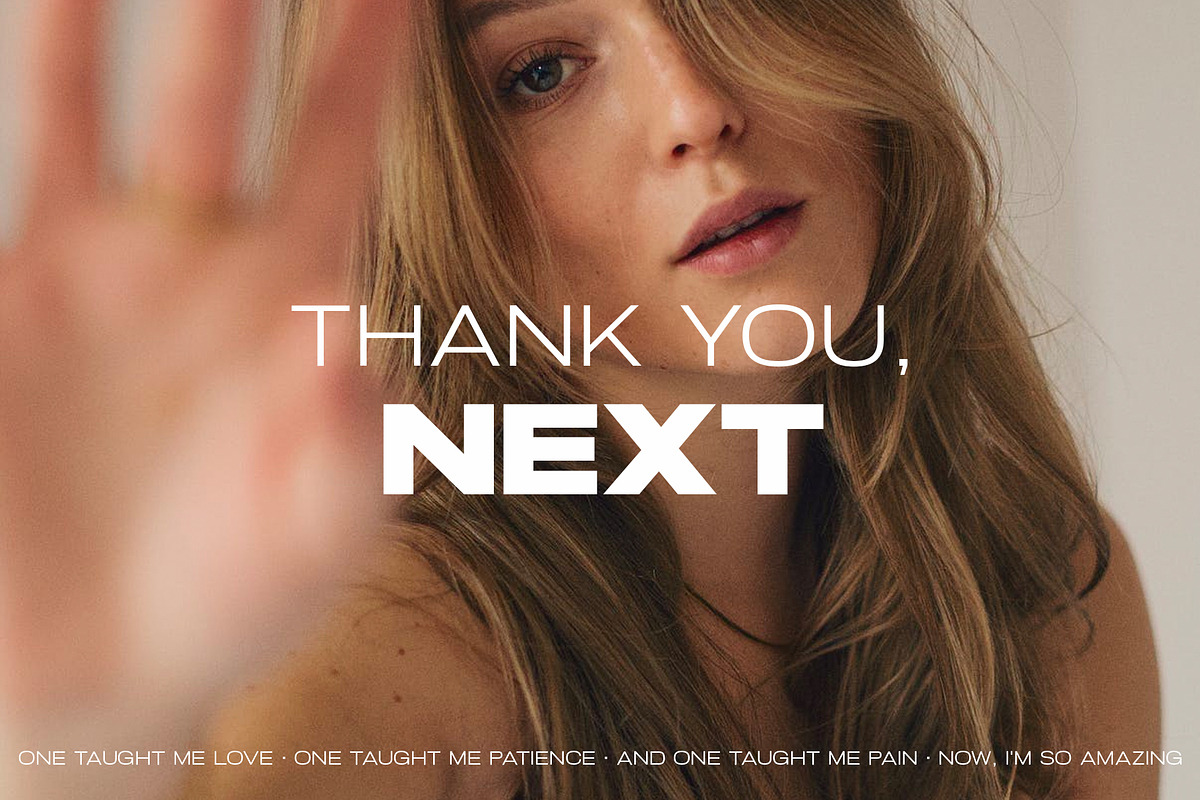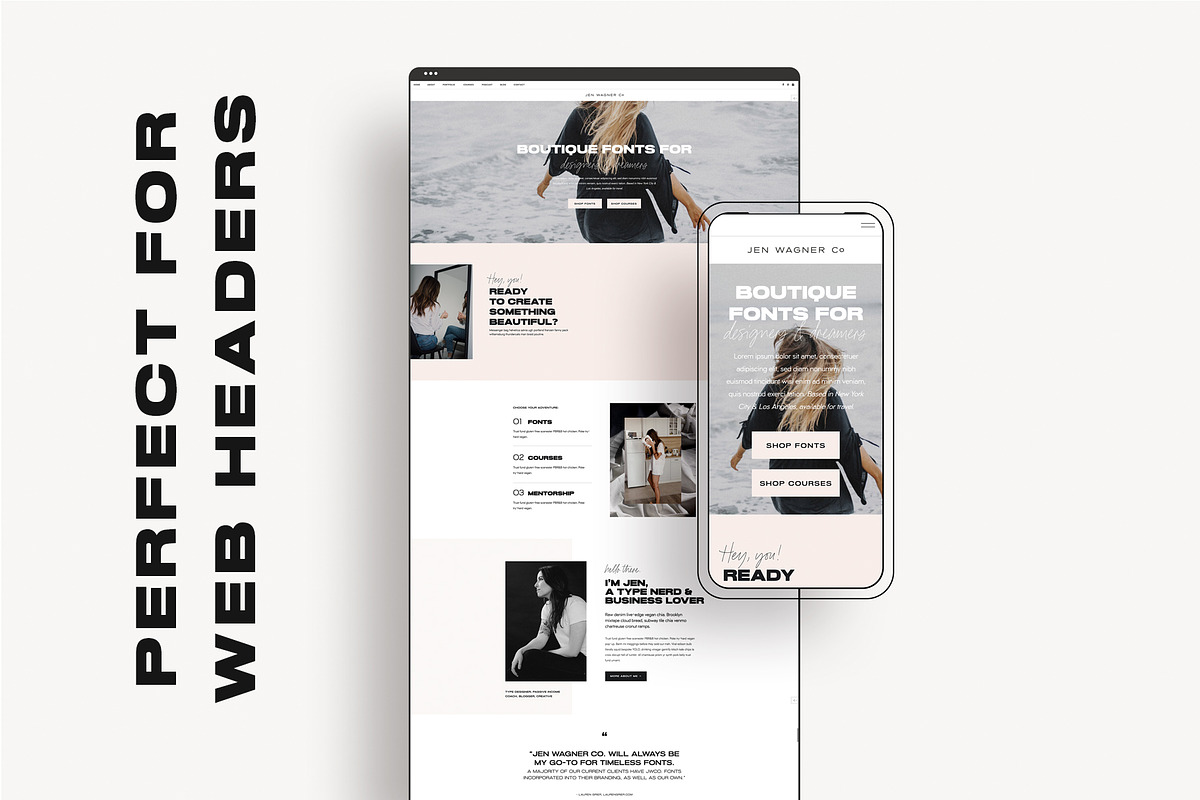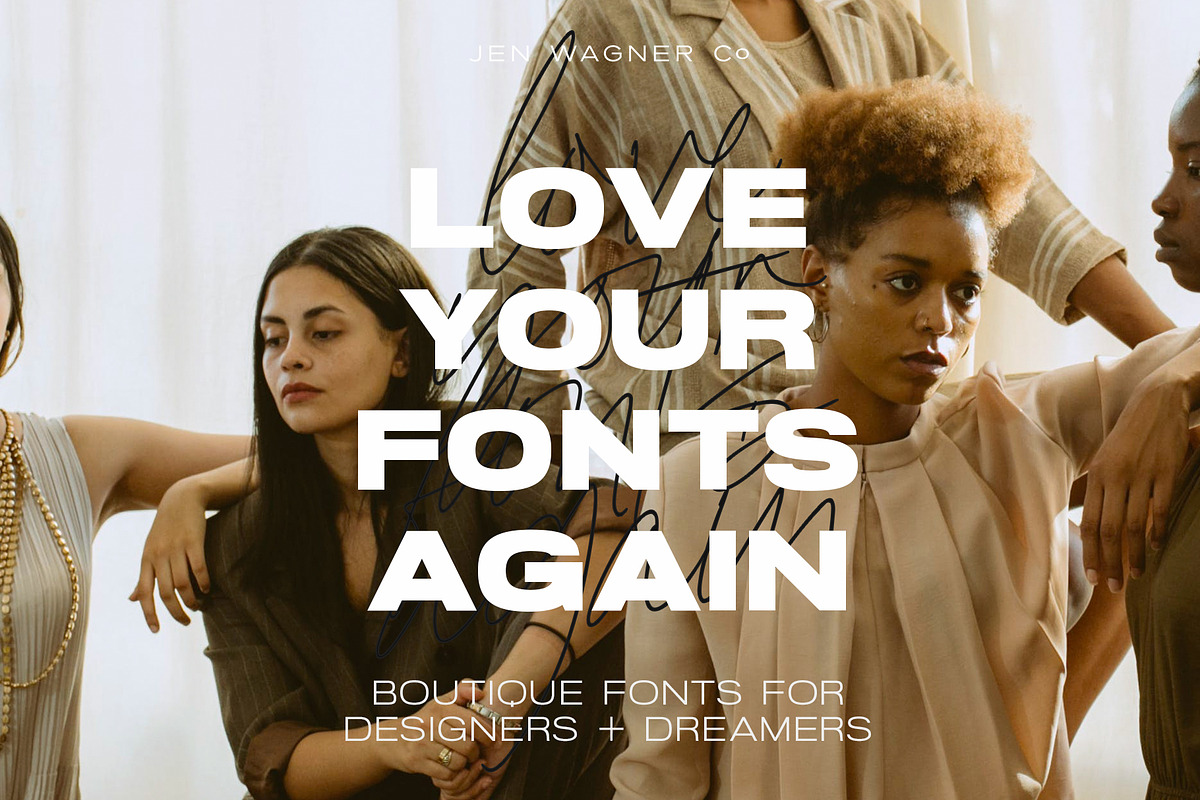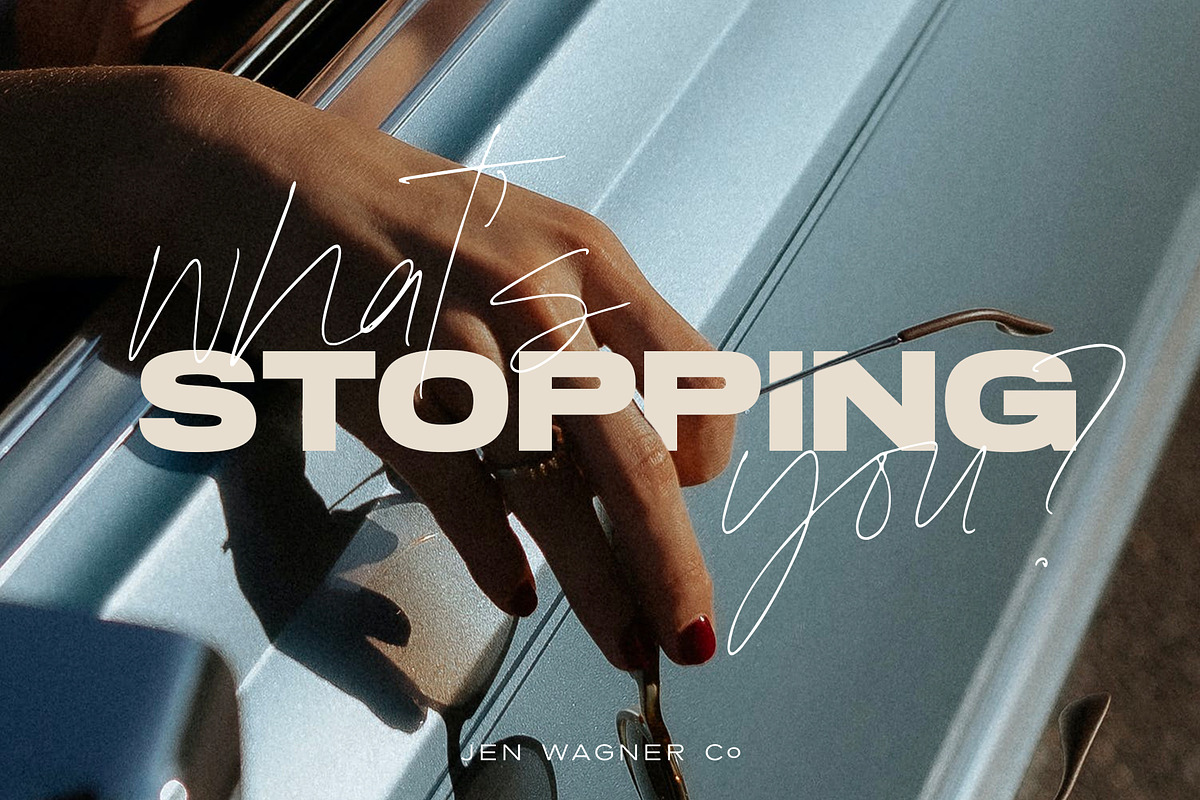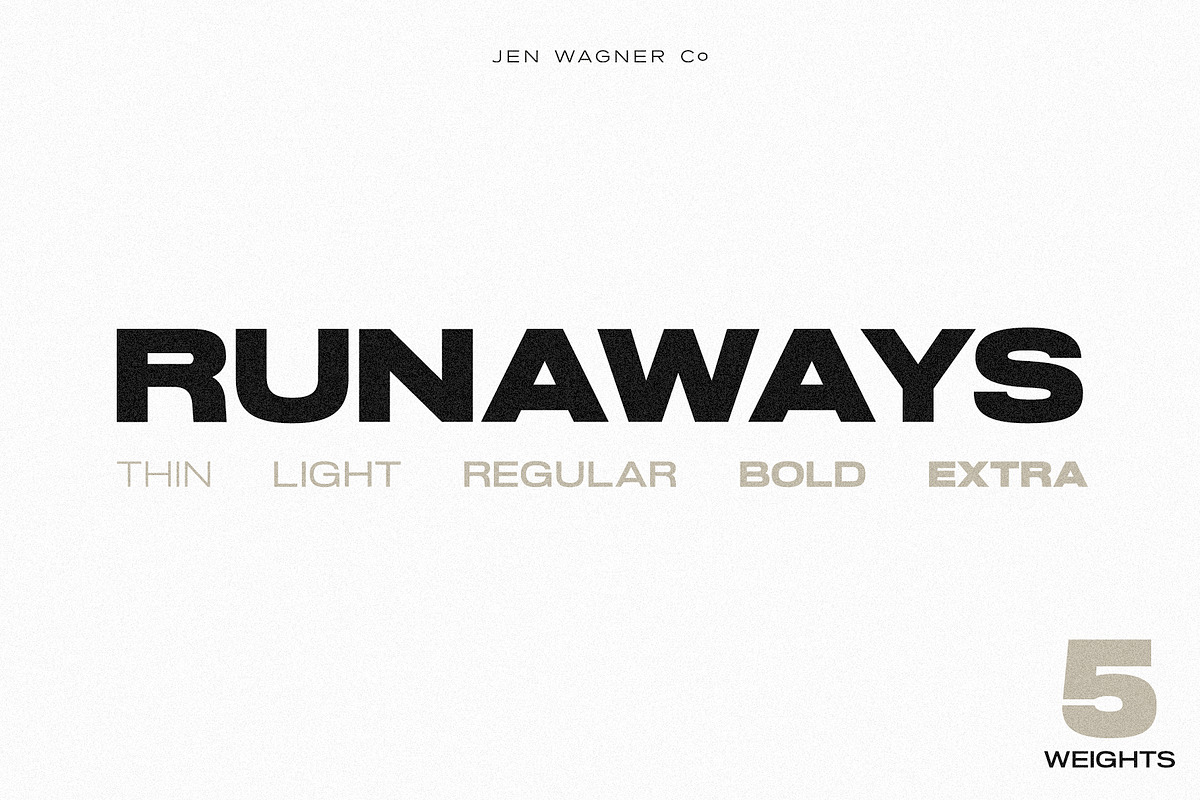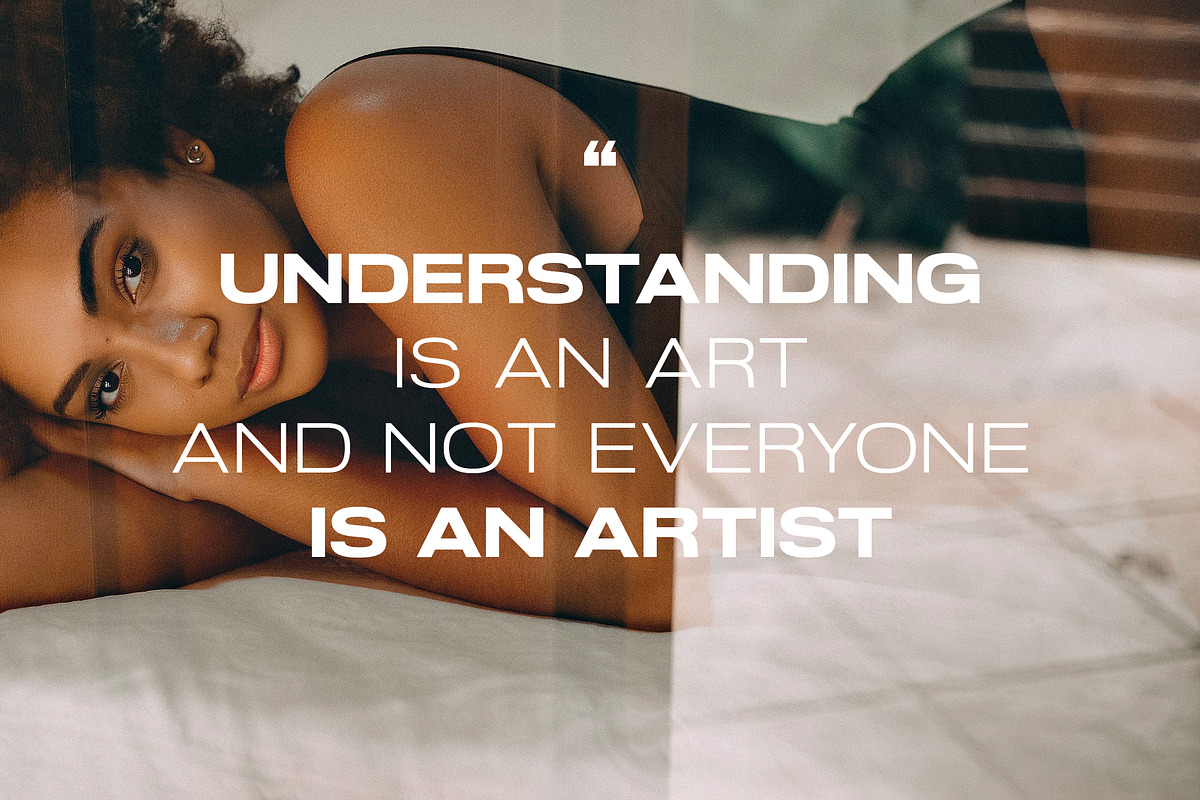
Runaways | A Powerful, Bold Sans
Runaways is a powerful and bold display sans, perfect for web headings and logos.
Designed to create impact and set your message apart, Runaways is the perfect font for powerful feminine brands, bold websites, & impactful quotes.
Plus, you'll get the flexibility of five distinctive weights to create contrast and hierarchy in your work, so finding a secondary font won't be a headache.
I love pairing Runaways with Halifax bold and Palo Alto script (coming soon!).
- Uppercase alphabet
- Five weights (Thin, Light, Regular, Bold, Extra Bold)
- Numbers and Punctuation
- Foreign language support